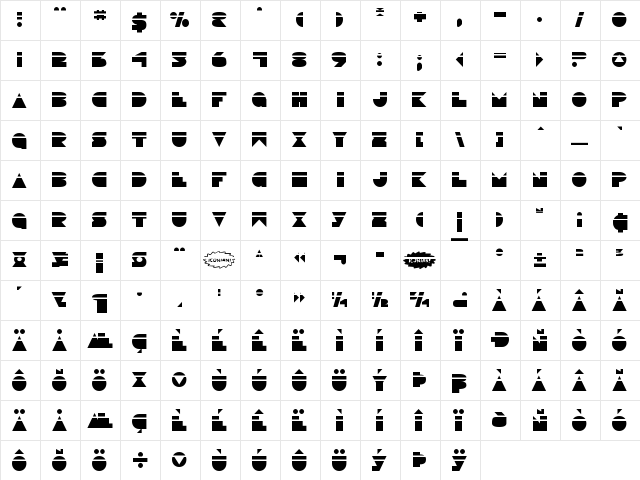
Disco Deck Laser Laser
Design Context for Disco Deck Laser Typeface
Disco Deck Laser is a composed and adaptable typeface that performs quietly and consistently across a wide range of design contexts.